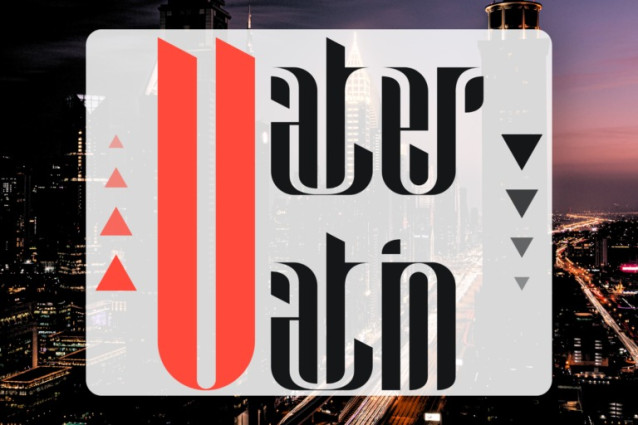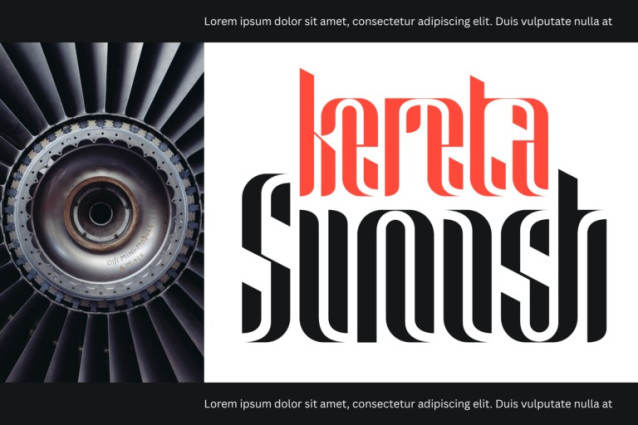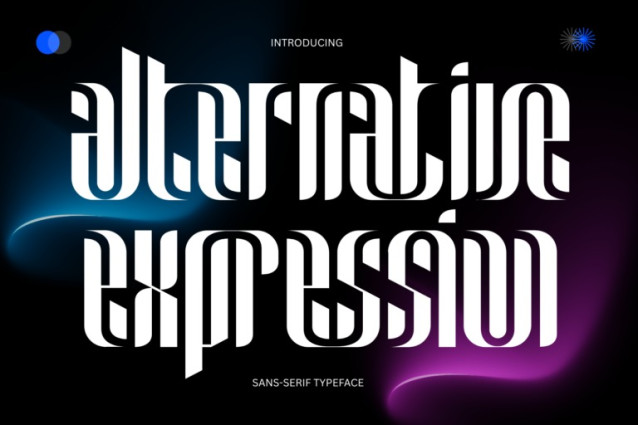
Alternative Expression Font
Alternative Expression Font – Futuristic Modular Sans-Serif Typeface, a bold and innovative display sans-serif typeface that pushes the boundaries of typographic design. With its ultra-high contrast, modular construction, and experimental forms, this font is crafted for creatives who aren’t afraid to stand out.
Designed with a unique rhythm and visual drama, Alternative Expression is perfect for editorial headlines, branding, posters, album covers, and fashion-forward visuals.
Features:
Full Uppercase and Lowercase alphabet
Around 100 unique Special Ligatures
Complete set of Numerals & Punctuation
Accented characters for multilingual support
Whether you’re working on a bold visual identity or an expressive graphic layout, Alternative Expression delivers personality and futuristic flair with every letterform.
About 100 ligatures combined with Stylistic Alternates Font: